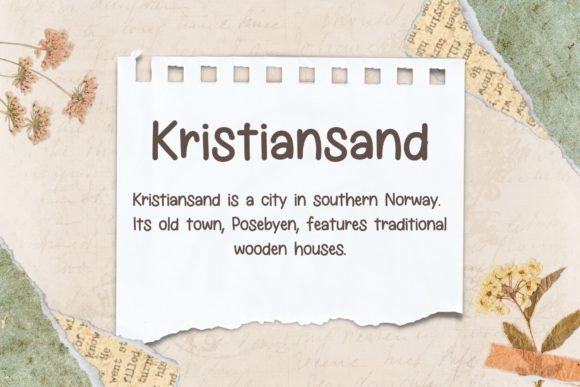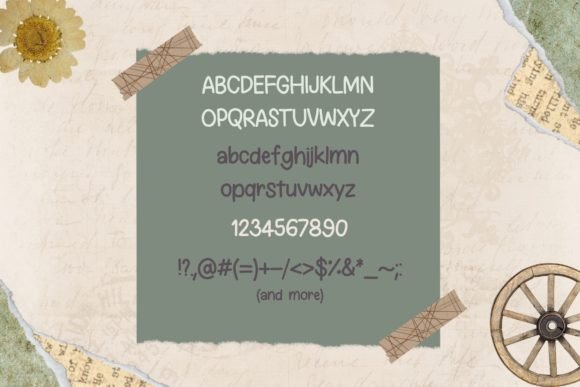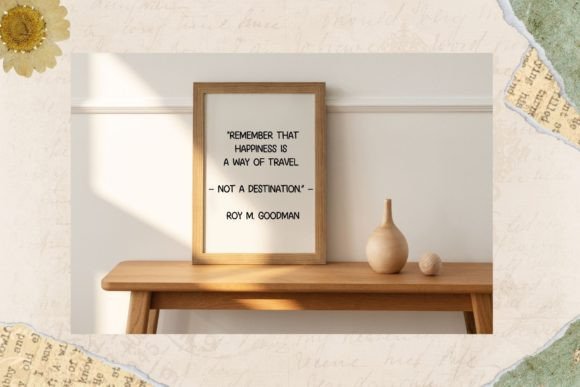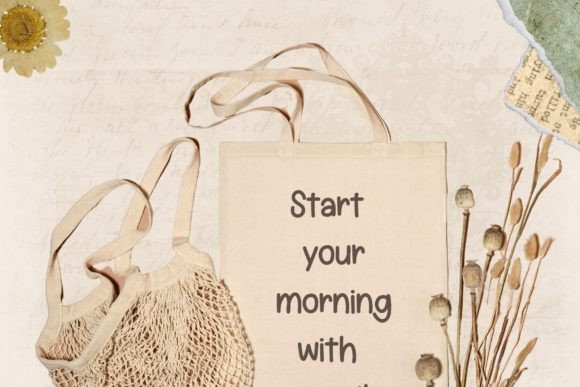
Introduction to Kristiensand Font
‘Kristiensad’ Fonts is a Handwritten script fonts.
Font design base on neat and cute Handwriting for neat, cute and friendly artwork Suitable for T-shirt design, mug, wall art, Bag, craft with funny quotes, digital designs, presentation, making greeting card, invitation card, sublimation and much more.